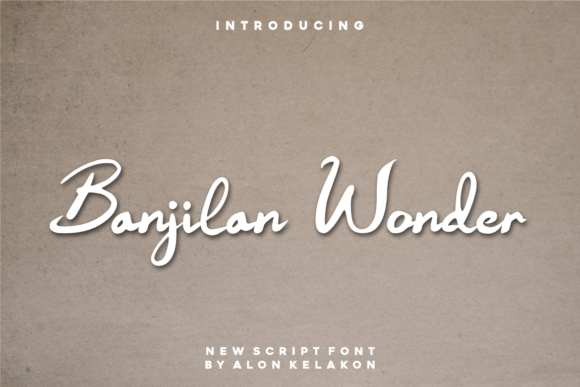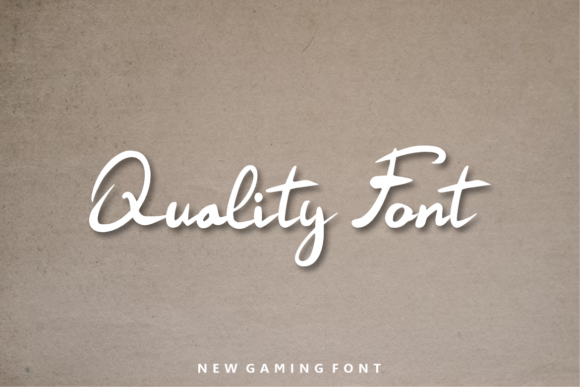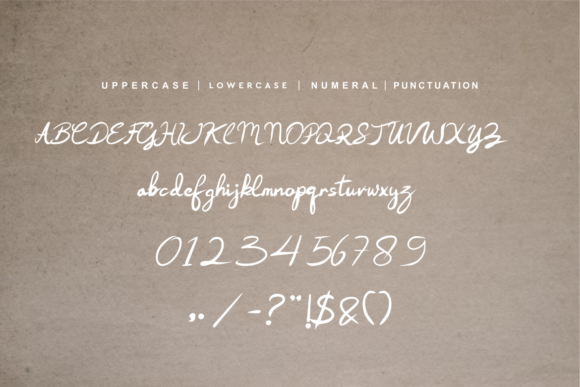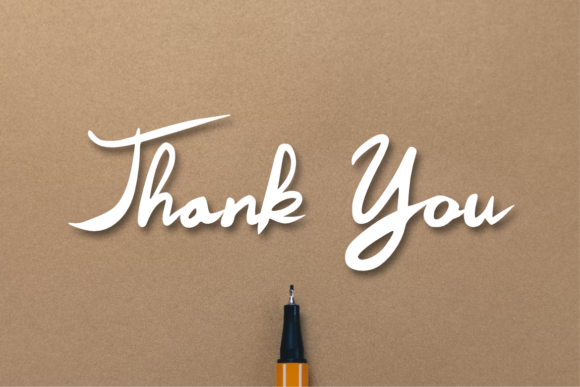
Discover the Magic of Banjilan Wonder Font
As a designer, there’s nothing quite like the thrill of creating something that captures the essence of a brand or message. It’s that moment when the perfect combination of typography, color, and texture comes together to make your work truly shine. And that’s exactly what the Banjilan Wonder Font is designed to do – add a touch of elegance and sophistication to your designs.
This superb handwritten font is perfect for product packaging, branding projects, magazine covers, and social media. Its curvy lines and elegant strokes make it a valuable asset for designers looking to add a personal touch to their work. Whether you’re working on a wedding invitation, a product label, or a social media post, the Banjilan Wonder Font is sure to make your design stand out.
- Unique Characteristics: Includes a wide range of swashes, ligatures, and alternates for creative typography
Banjilan Wonder Font Review
Overall, I found the Banjilan Wonder Font to be a visually striking choice for designers. ✨ Its unique blend of organic and digital elements gives it a truly one-of-a-kind feel that can add a touch of personality to any project.
- ✨ The font’s irregularity adds a sense of depth and character to text, making it perfect for creative and artistic projects.
- ✨ The font is highly customizable, allowing designers to adjust its various parameters to fit their specific needs.
- ✨ The font’s digital aspects give it a modern and cutting-edge feel, making it suitable for a wide range of applications.
- ⚠️ The font may not be the best choice for projects that require a high level of legibility, as its irregularity can make it difficult to read at certain sizes.
- ⚠️ The font’s unique characteristics may not be suitable for all audiences, and some users may find it too unconventional or overwhelming.
Overall, I would recommend the Banjilan Wonder Font to designers who are looking for a bold and eye-catching choice that can add some personality to their projects. While it may have some limitations, its unique characteristics make it a great option for those who want to stand out from the crowd.
Getting the Most Out of Banjilan Wonder Font
Use the Banjilan Wonder Font to add a touch of whimsy and elegance to your designs.
Pair it with bold colors and playful graphics for a unique look.
Branding and marketing materials
Artistic and creative projects